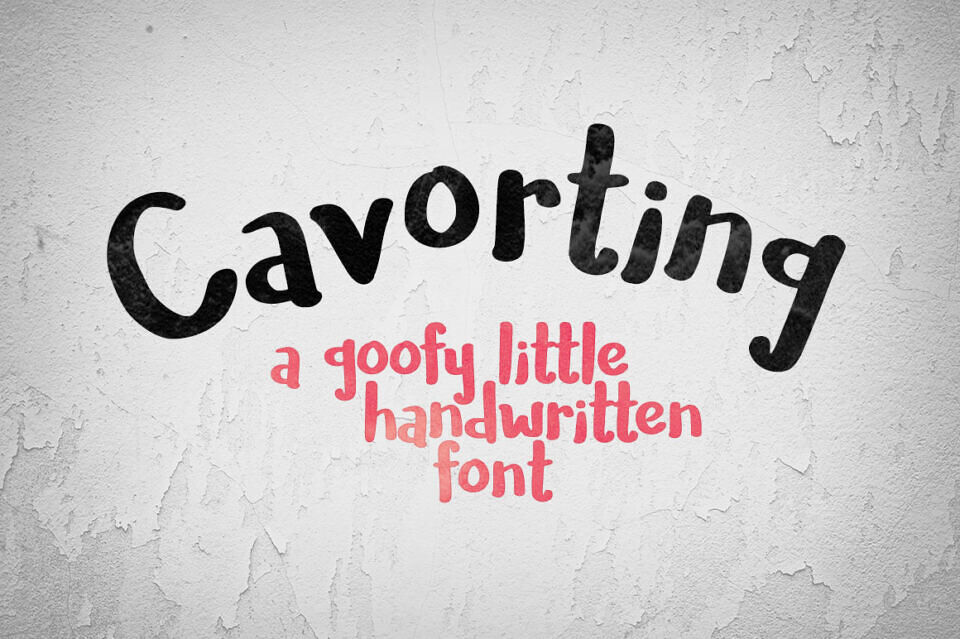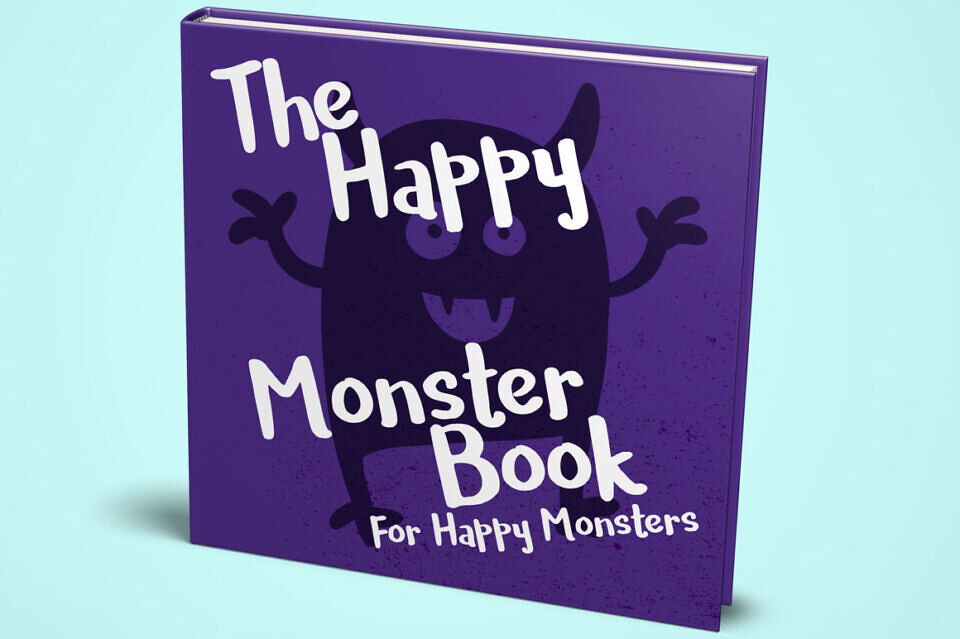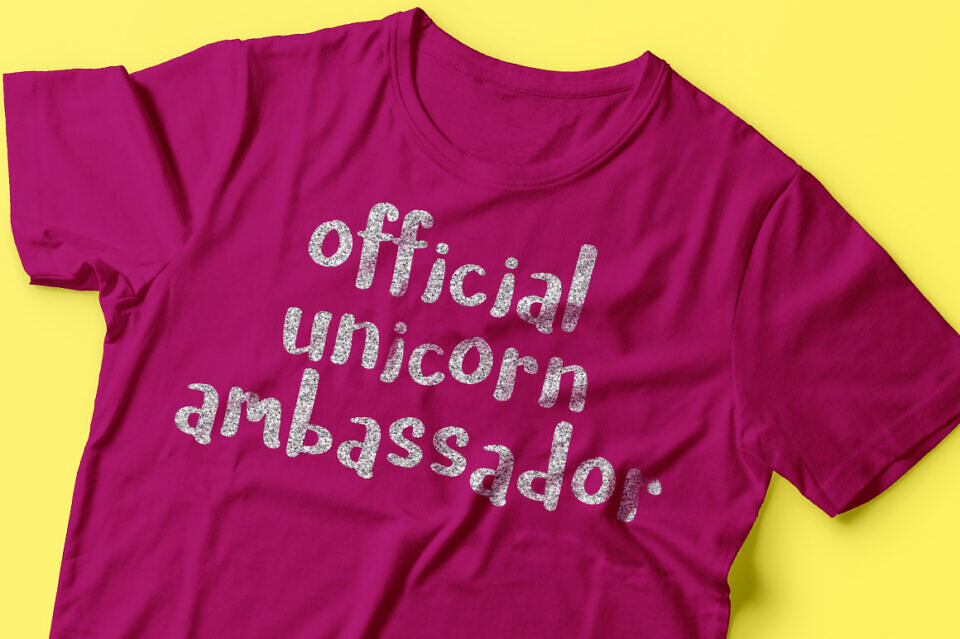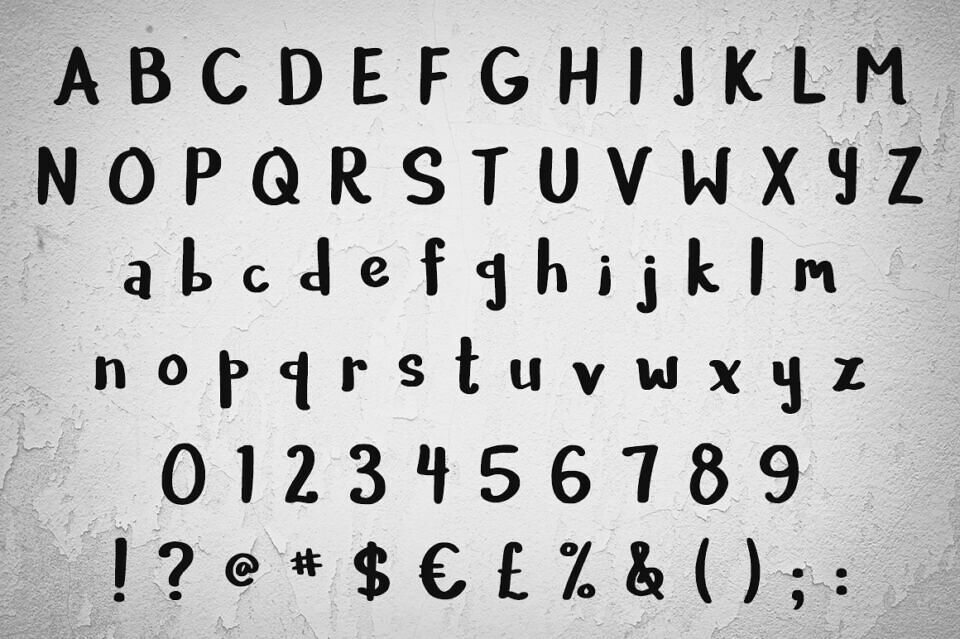
Inject playfulness into your designs with Cavorting, a free handwriting font by Missy Meyer. Created as a unique “one-day” experiment, this spirited typeface features a spontaneous, hand-lettered aesthetic that adds authentic character to headlines and branding.
Perfect for print media, Cavorting offers a slightly irregular, non-smooth construction that distinguishes it from standard “clean” fonts (making it better suited for ink than cutting machines).